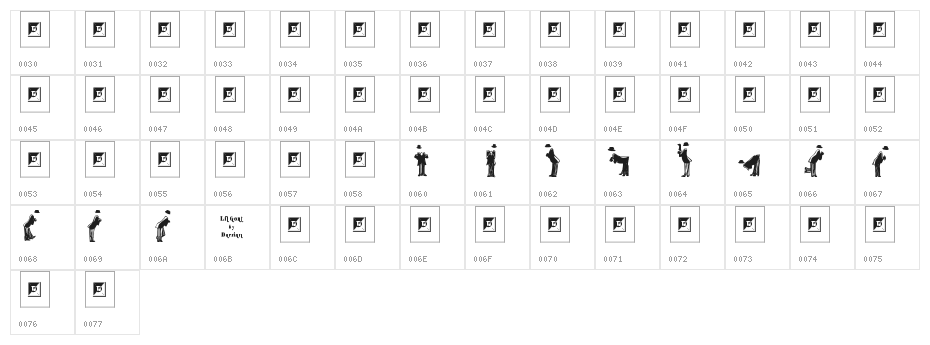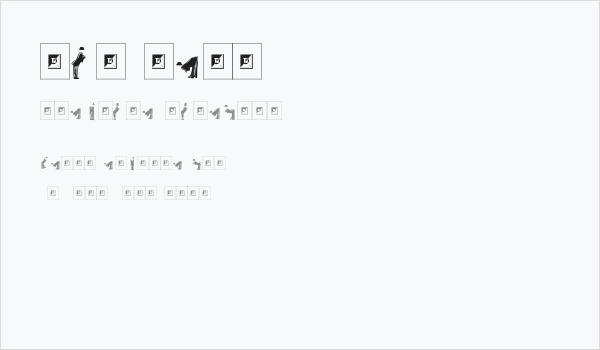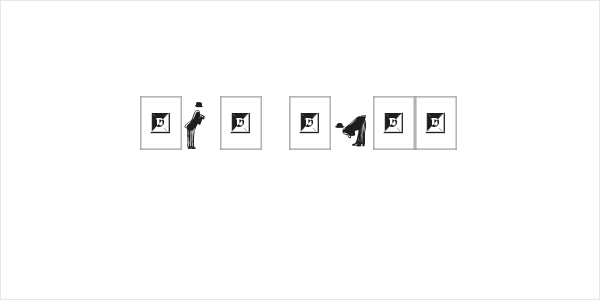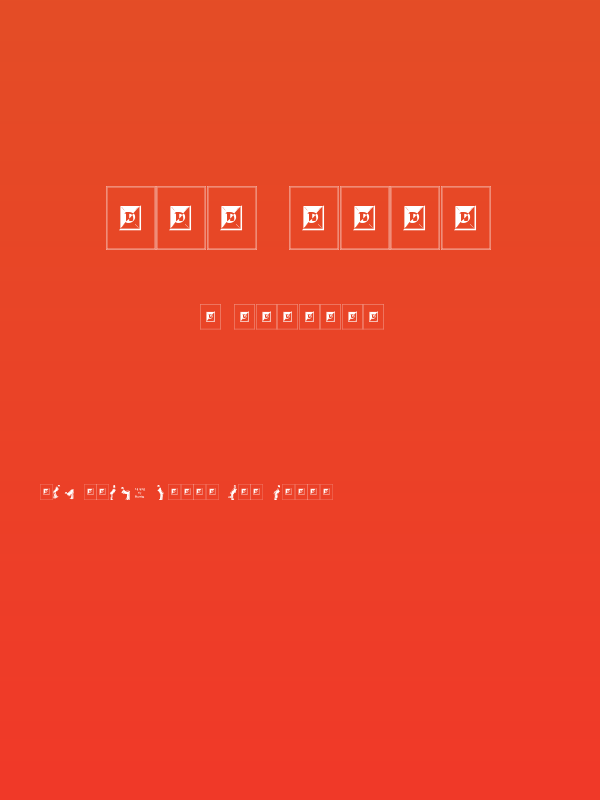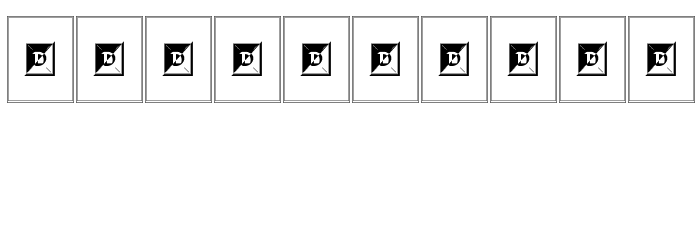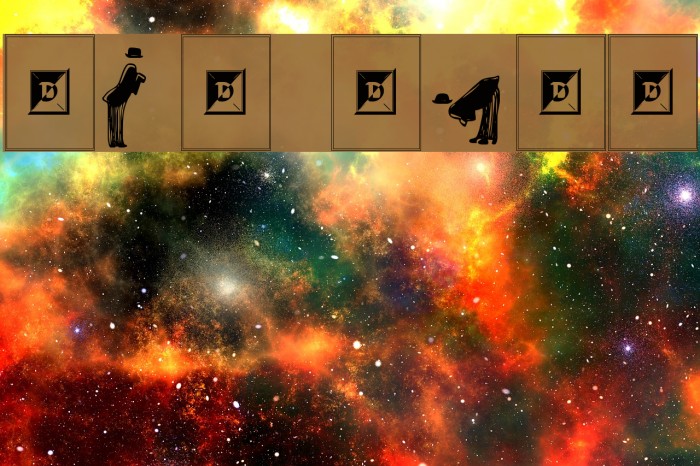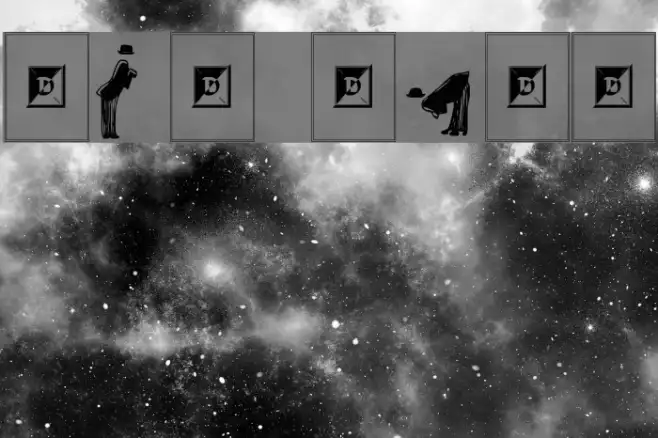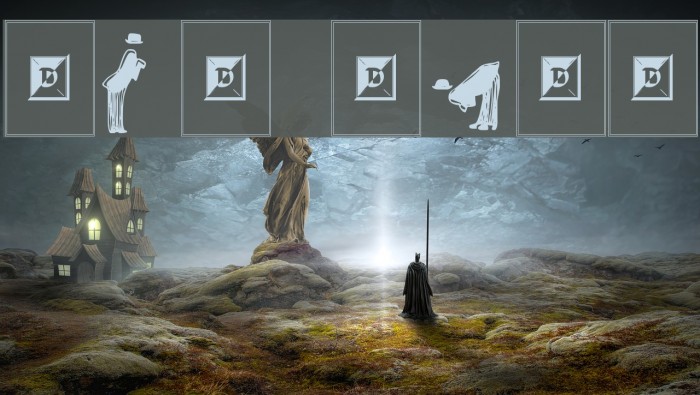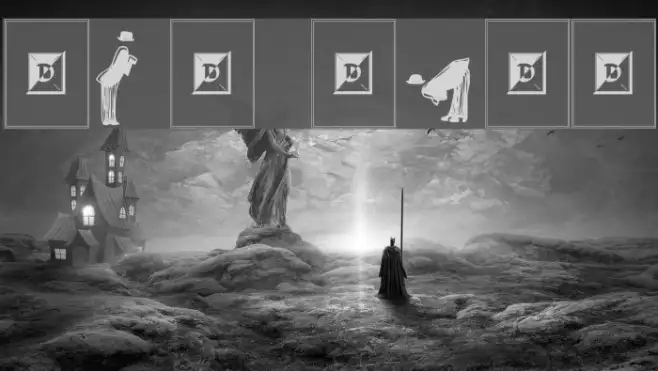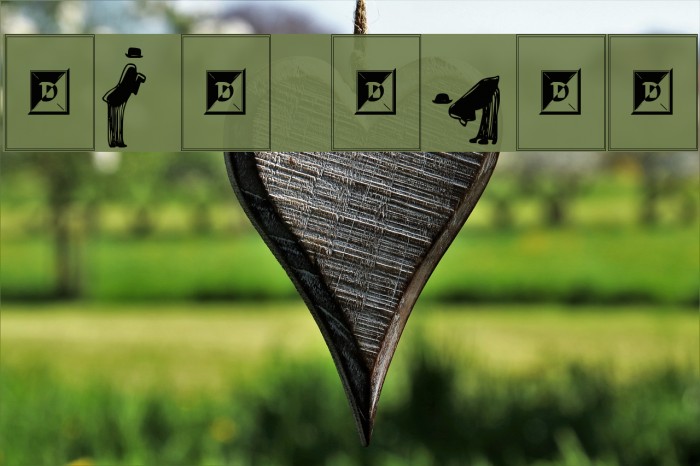
Lil Gent Font
Lil Gent Description
This unique typeface features a series of stylized characters that resemble a gentleman in various poses, each character intricately designed to convey a sense of movement and personality. The figures are dressed in classic attire, complete with hats, adding a whimsical and vintage flair. The font is highly decorative and artistic, making it ideal for creative projects that require a touch of elegance and humor. The characters are enclosed in square frames, enhancing their distinct appearance and making them stand out. This font is not suitable for body text due to its complex design but excels in decorative and thematic applications.
| Overall Style | Vintage, Decorative |
| Use Case | Logos, Headlines, Decorative elements |
| Proposed Projects | Ideal for greeting cards, posters, invitations, and themed event materials. |